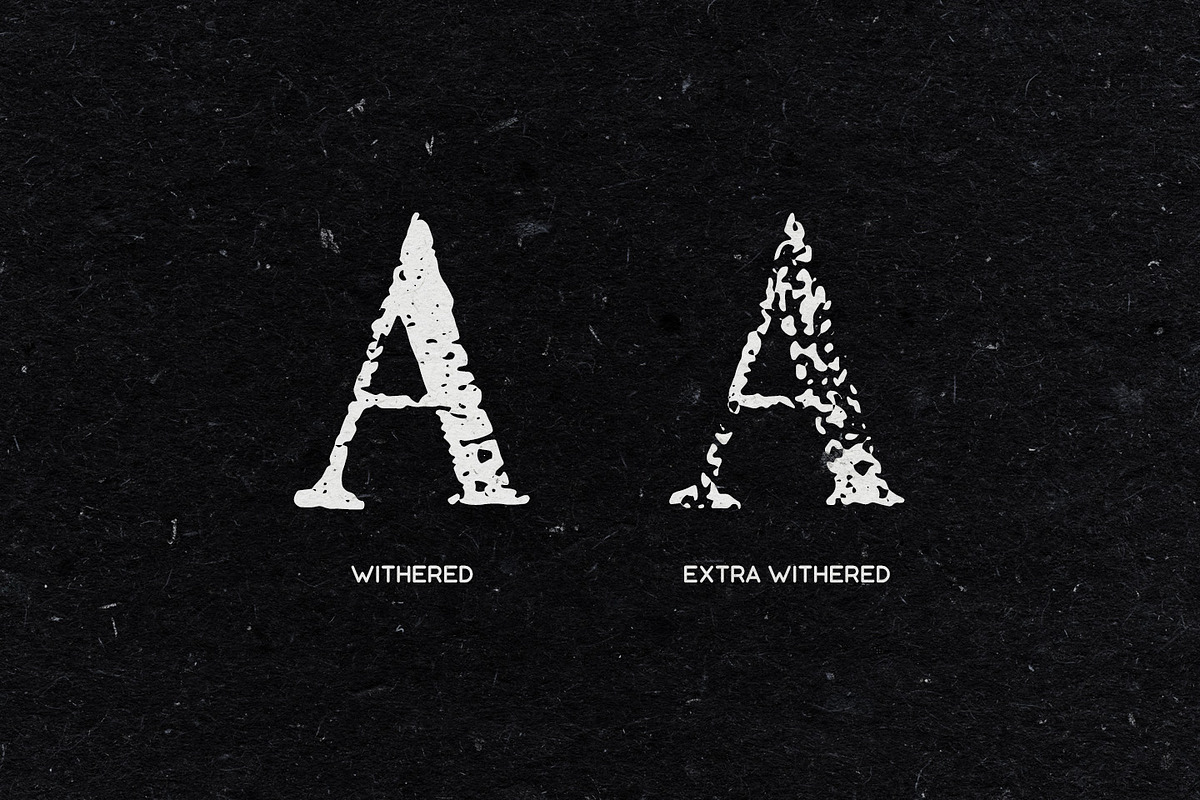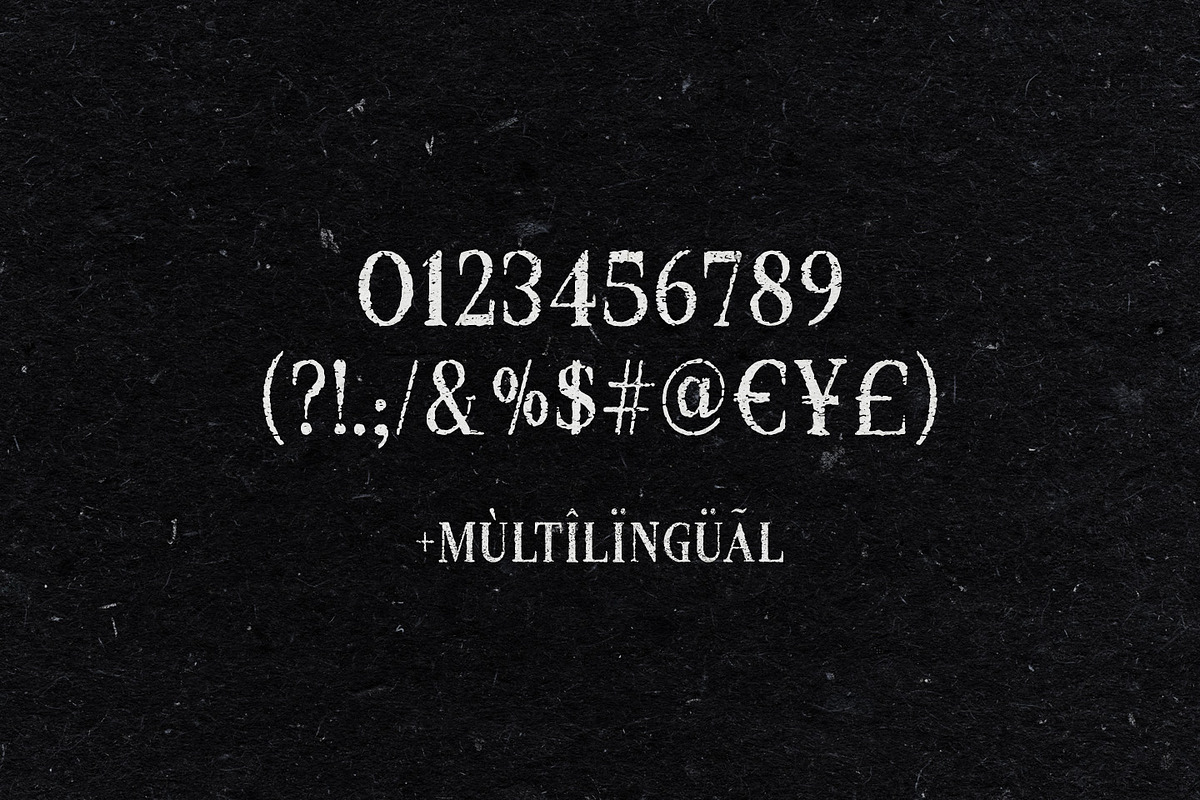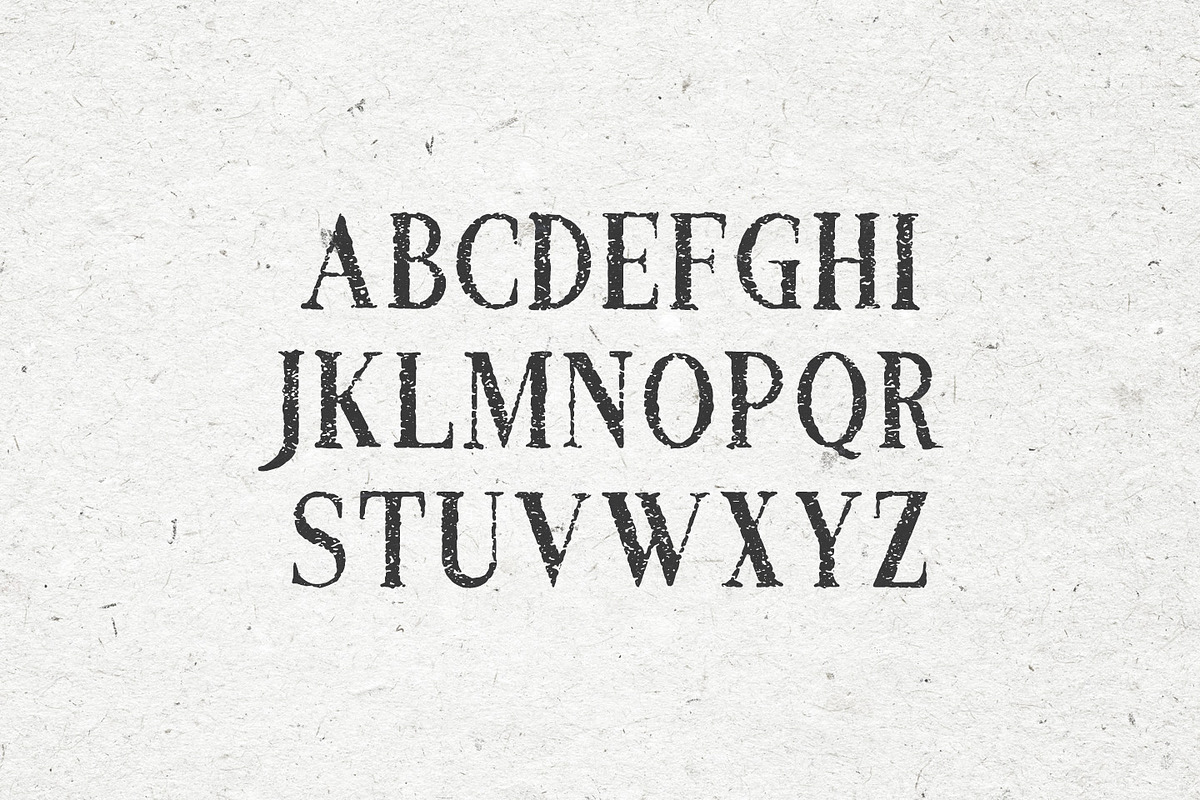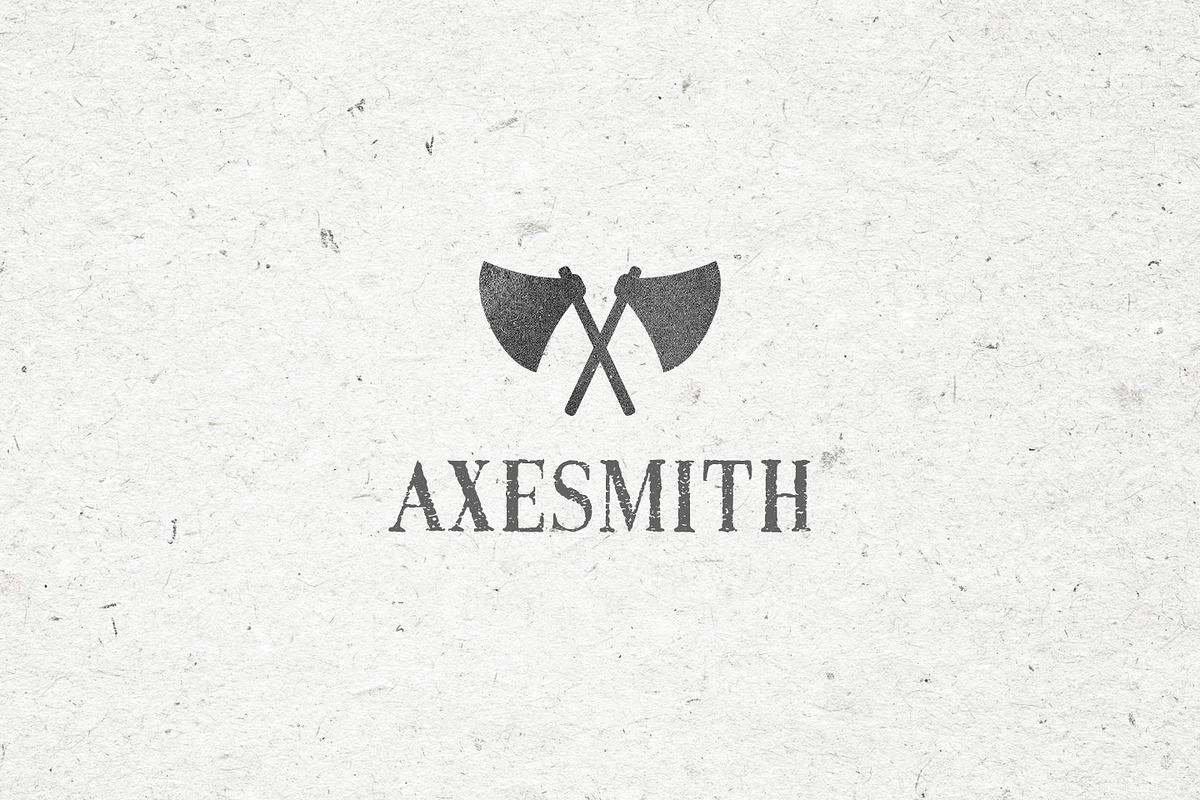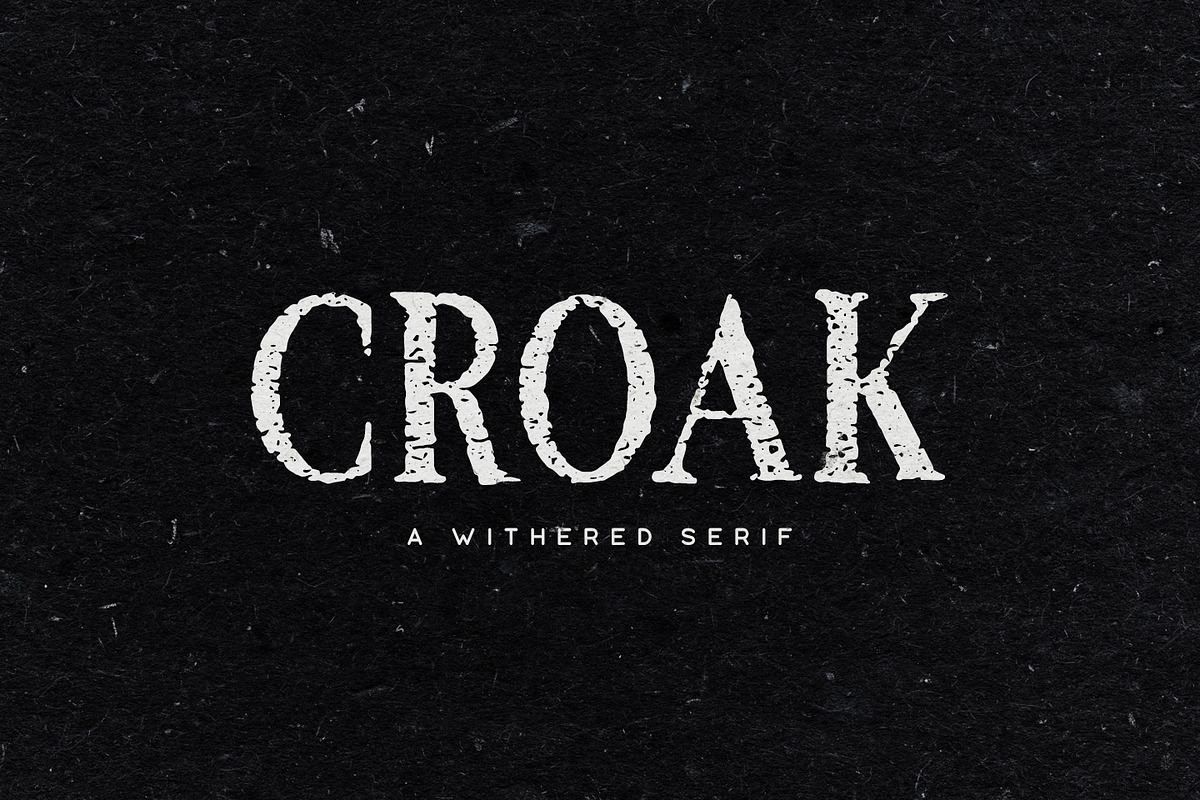
Croak Typeface
Croak is a rough serif display font familty. It includes multilingual uppercase letters, numbers and punctuation. Croak comes in 2 withered styles, the second one being rougher than the first.
- It includes multilingual uppercase letters, numbers and punctuation.
- Croak Extra Withered
- Croak Withered